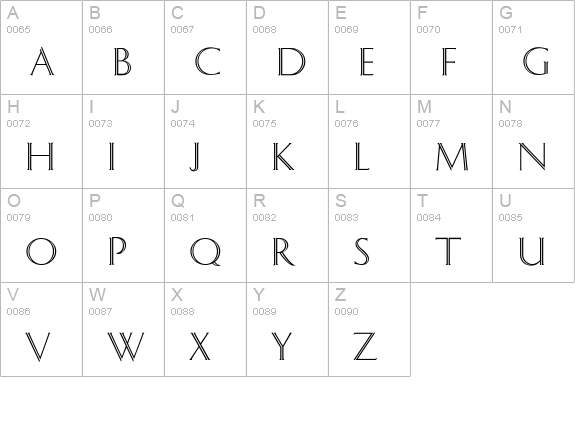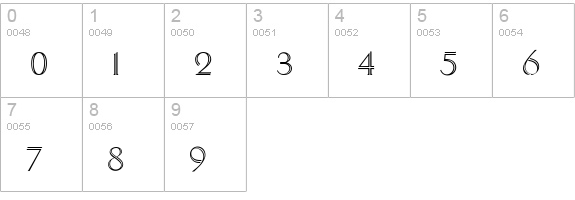
CgDelphian Font Details
CgDelphian font is a timeless and elegant typeface that exudes sophistication and class. With its delicate serifs and graceful curves, this font is perfect for adding a touch of refinement to any design project. The CgDelphian font is versatile and can be used for a variety of purposes, from branding to editorial design. What sets the CgDelphian font apart is that it is available for free download at FontsMarket.com. This means that you can easily access this beautiful font without any cost, making it a valuable addition to your font library. Whether you are a designer looking for a new favorite typeface or a business owner in need of a stylish font for your branding, CgDelphian font is the perfect choice. Download it today and elevate your designs with this stunning and sophisticated font.